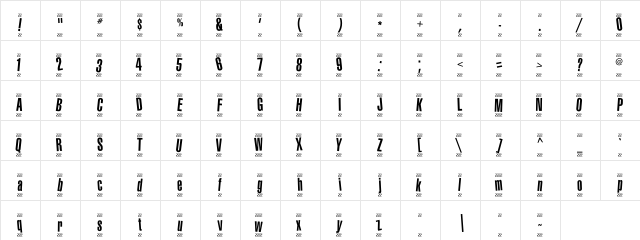
1980 Portable Regular
| Foundry | Larabie Fonts |
Design Context for 1980 Portable Typeface
1980 Portable offers clean, dependable letterforms without strong stylistic allegiance, making it a practical choice for designers who need flexibility.
Pro Tip: Use 1980 Portable in both headline and body roles to test its range before committing to a single application.